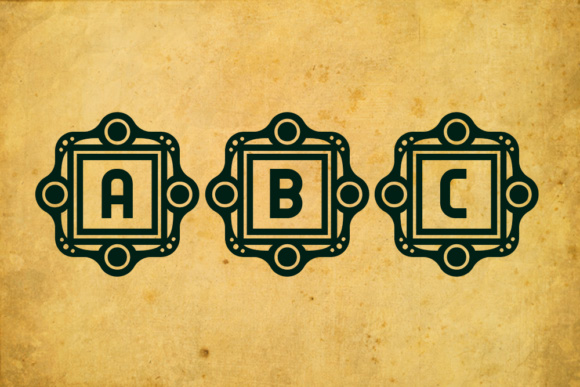
Introducing Answer Capitals Font: Elevate Your Designs with Elegance
Are you tired of using the same old fonts in your designs? Look no further than Answer Capitals Font, a stunning decorative font that’s perfect for adding a touch of sophistication to your projects. With its unique and elegant style, Answer Capitals is sure to make your posters, headlines, banners, and more stand out from the crowd.
What Makes Answer Capitals Font So Special?
Answer Capitals Font is a great decorative font that’s designed to add a touch of glamour to your designs. Its elegant and refined style makes it perfect for use in a variety of applications, from posters and headlines to banners and signage. Whether you’re a designer, crafter, or DIY enthusiast, Answer Capitals Font is sure to become a go-to choice for adding a touch of sophistication to your projects.
Key Features of Answer Capitals Font
- Unique and Elegant Style: Answer Capitals Font features a unique and elegant style that’s sure to add a touch of sophistication to your designs.
- Decorative and Versatile: This font is perfect for use in a variety of applications, from posters and headlines to banners and signage.
- Easy to Read: Despite its decorative nature, Answer Capitals Font is easy to read, making it perfect for use in titles, headings, and other display text.
- Scalable: This font is highly scalable, making it perfect for use in a variety of sizes and applications.
Uses for Answer Capitals Font
Answer Capitals Font is a versatile font that can be used in a variety of applications, including:
- Posters: Add a touch of elegance to your posters with Answer Capitals Font.
- Headlines: Use Answer Capitals Font to create eye-catching headlines that grab attention.
- Banners: Add a touch of sophistication to your banners with Answer Capitals Font.
- Signage: Use Answer Capitals Font to create eye-catching signage that stands out from the crowd.
- Digital Media: Use Answer Capitals Font in your digital media, such as social media graphics, videos, and more.
Tips for Using Answer Capitals Font
Here are a few tips for getting the most out of Answer Capitals Font:
- Use it sparingly: Answer Capitals Font is a decorative font, so use it sparingly to add emphasis to your designs.
- Pair it with other fonts: Pair Answer Capitals Font with other fonts to create a unique and interesting look.
- Experiment with different sizes: Experiment with different sizes and colors to find the perfect look for your design.
Answer Capitals Font is a great decorative font that’s perfect for adding a touch of elegance to your designs. With its unique and elegant style, this font is sure to make your posters, headlines, banners, and more stand out from the crowd. Whether you’re a designer, crafter, or DIY enthusiast, Answer Capitals Font is a must-have font to add to your collection.